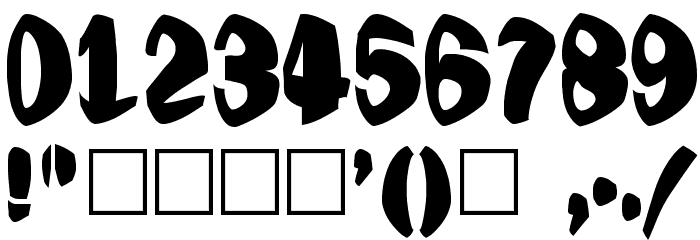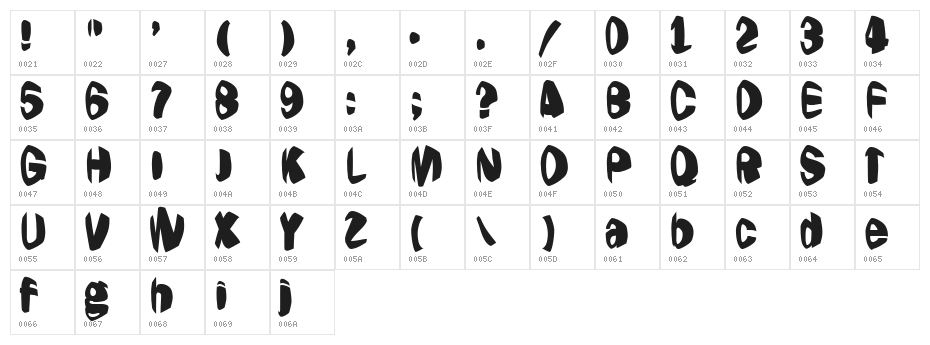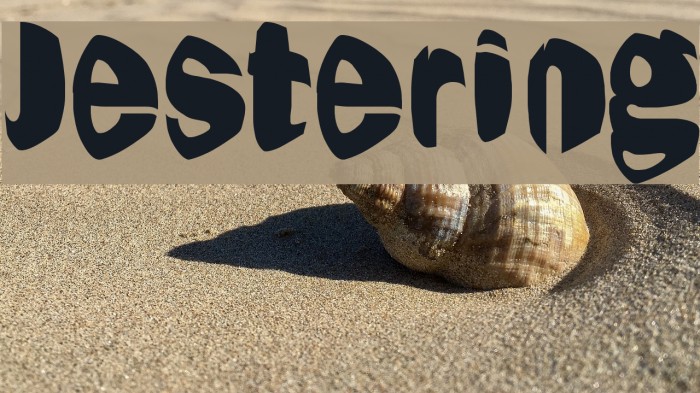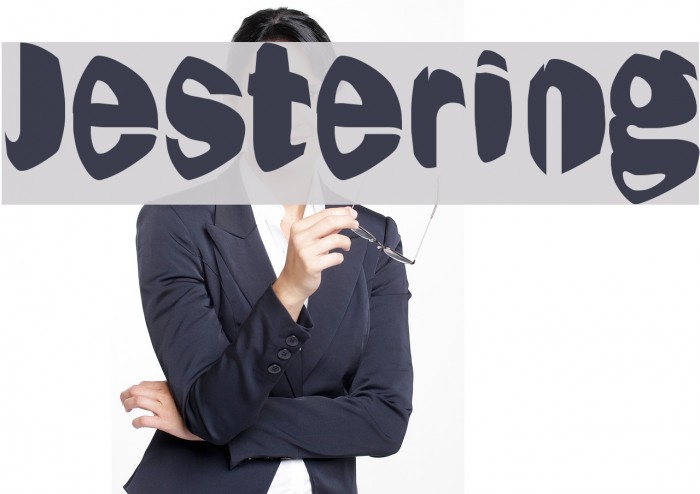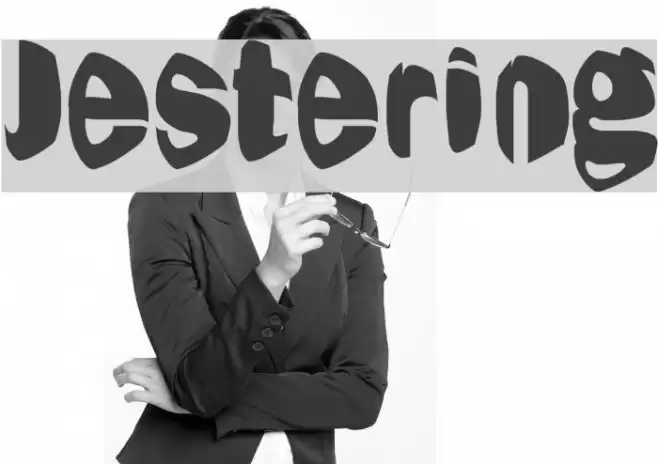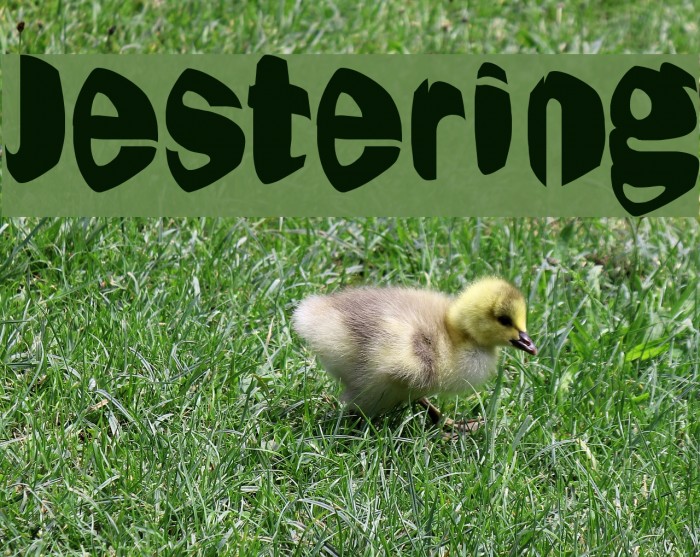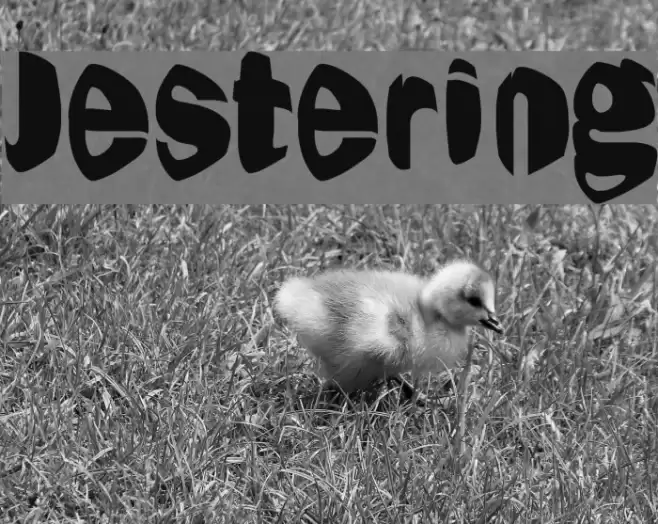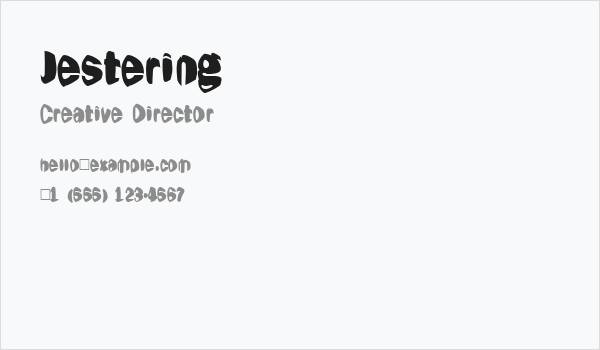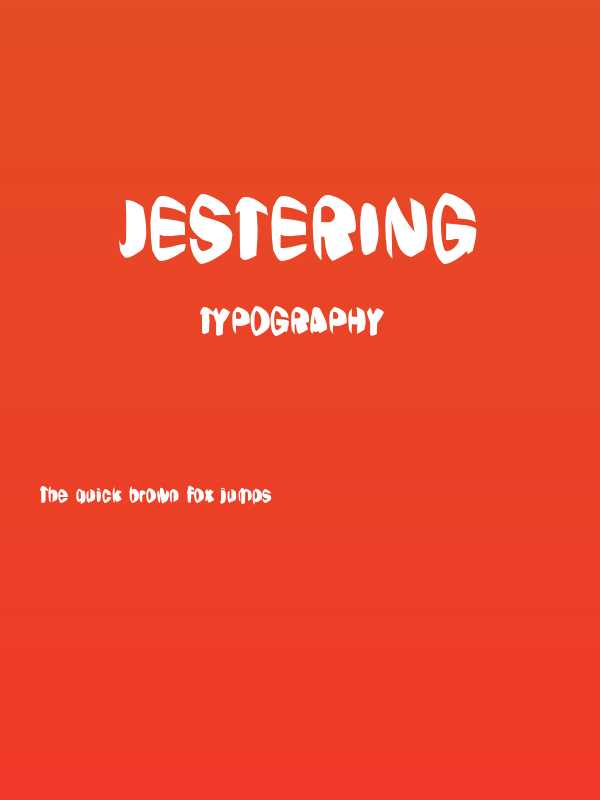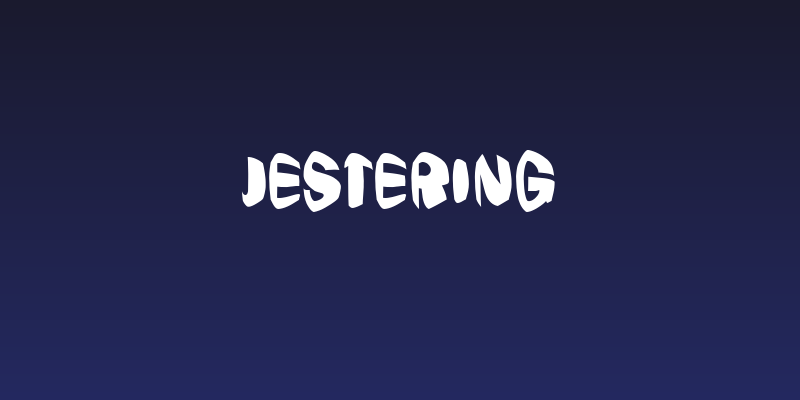
Jestering Font
Jestering Description
This playful and bold font features a unique, whimsical design with exaggerated curves and a lively, dynamic appearance. The characters are thick and rounded, with a slightly irregular shape that adds a sense of fun and creativity. The uppercase and lowercase letters maintain a consistent style, while the numbers and special characters complement the overall aesthetic. The font's boldness and distinctive look make it ideal for projects that require a touch of humor and personality.
| Overall Style | Playful, Whimsical, Creative |